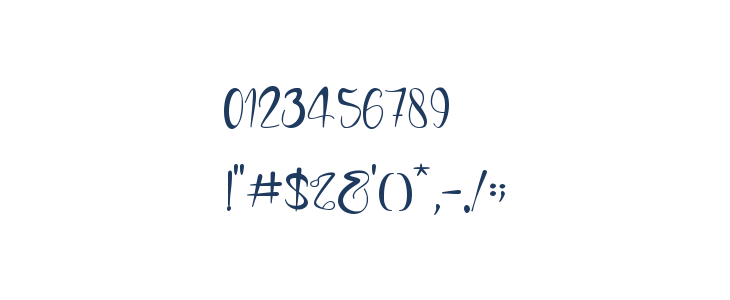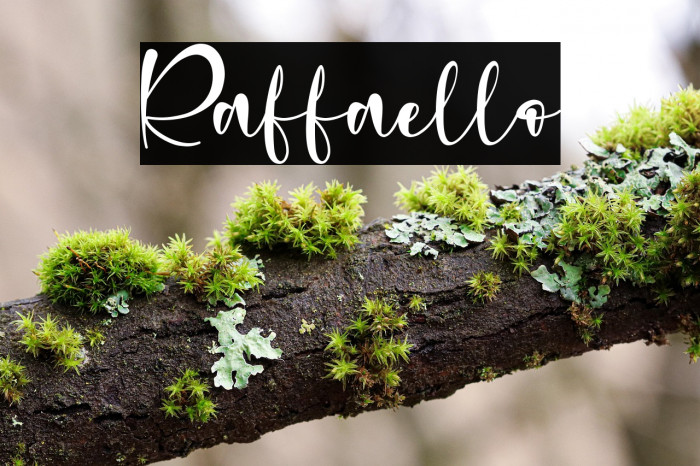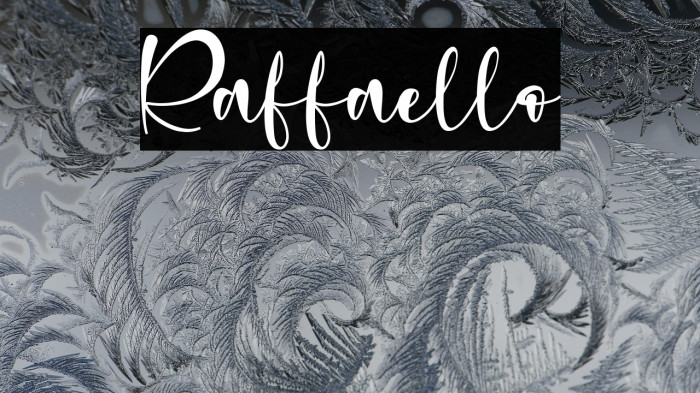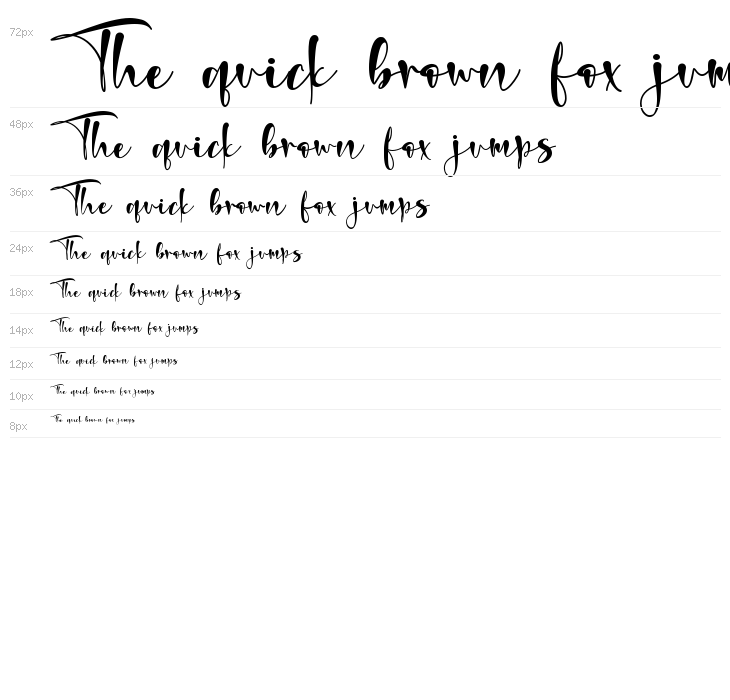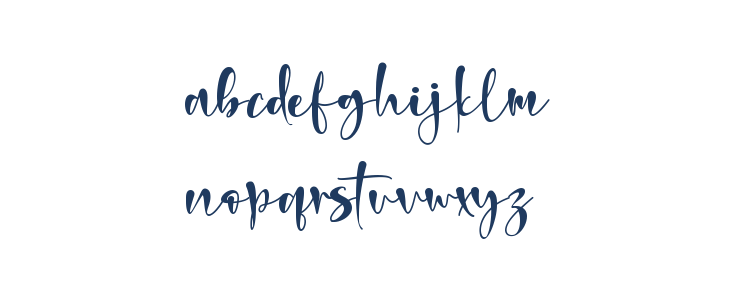
Raffaello Font
Raffaello Description
This font features an elegant and flowing script style, characterized by its smooth, cursive strokes and artistic flair. The uppercase letters are particularly ornate, with sweeping curves and loops that give a sense of movement and grace. The lowercase letters maintain a consistent style, with rounded forms and a slightly playful touch. Numbers and special characters are designed to complement the overall aesthetic, ensuring a cohesive look across all text. The font's design is both sophisticated and approachable, making it suitable for a variety of creative applications.
| Use Case | Logos, Headlines, Invitations |
| Proposed Projects | Ideal for wedding invitations, greeting cards, branding, and logo design. |